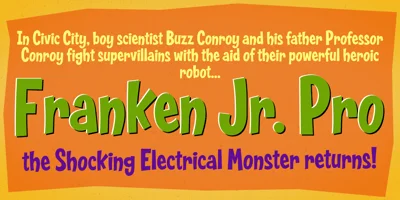
Franken Jr AOE Pro Font
Franken Jr AOE Pro Font is ideal for horror movie titles, Halloween marketing campaigns, gothic branding projects, spooky event graphics, haunted attraction signage, thriller book covers, and dark entertainment designs.
What makes Franken Jr AOE Pro Font exciting is its spine-chilling character and gothic atmosphere, featuring haunting letterforms that capture the essence of classic horror while delivering bone-chilling visual impact and supernatural authenticity.
The Franken Jr AOE Pro Font family includes Regular, Bold, Condensed, and Extended versions, plus distressed horror variants and gothic decorative alternates that enhance the font's frightening character and supernatural appeal.
Franken Jr AOE Pro Font unleashes the ultimate typographic nightmare for horror enthusiasts and gothic design projects. This spine-tingling typeface embodies the dark essence of classic monster movies and supernatural storytelling, creating a haunting visual language that speaks to audiences who crave thrills, chills, and otherworldly experiences. The font's menacing character and gothic appearance make it perfect for entertainment brands, seasonal campaigns, and creative projects that want to communicate mystery, suspense, and delicious fear.
Horror entertainment companies and gothic brands consistently choose Franken Jr AOE Pro Font for projects that require authentic supernatural credibility and frightening visual impact. The typeface's monstrous construction and haunting personality make it exceptionally effective for movie studios, haunted attractions, and entertainment venues who want to communicate genuine scares, gothic atmosphere, and supernatural storytelling excellence. Each character has been forged in the fires of creative darkness to ensure maximum fright factor across all horror applications and spooky environments.
The supernatural advantages of Franken Jr AOE Pro Font extend beyond its horrifying appeal to include practical functionality for diverse entertainment applications. The font maintains excellent readability even in dim lighting conditions while delivering the distinctive character that sets genuine horror experiences apart from mild Halloween decorations. Its comprehensive character set includes gothic symbols and supernatural elements that make it particularly suitable for horror documentation and dark entertainment communication.
Halloween retailers, horror movie studios, and gothic entertainment venues frequently incorporate Franken Jr AOE Pro Font into their brand identity systems because of its ability to instantly convey supernatural authenticity and spine-chilling atmosphere. The typeface's horrifying aesthetic helps establish credibility in competitive entertainment markets while appealing to audiences who seek genuine thrills, gothic beauty, and memorable frightening experiences in their entertainment choices.